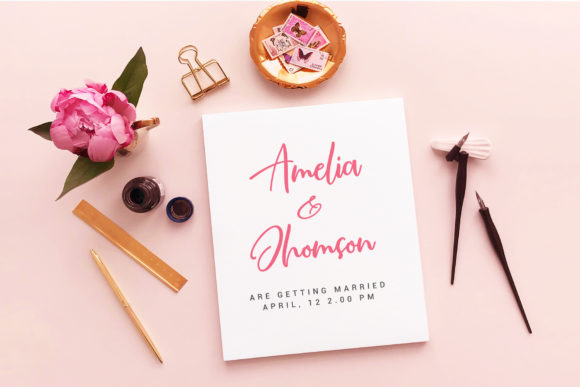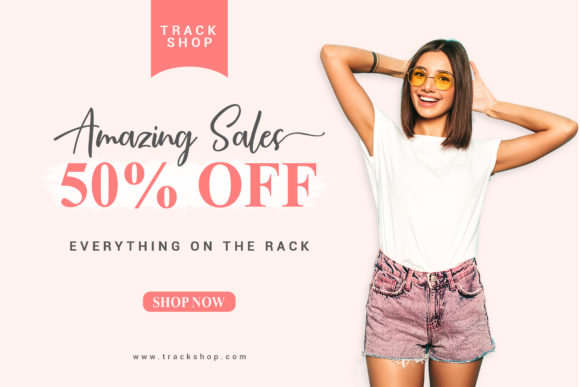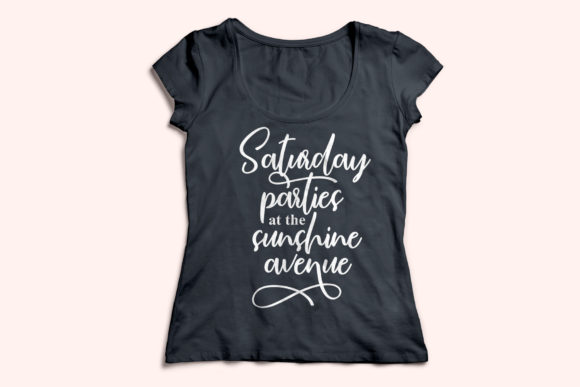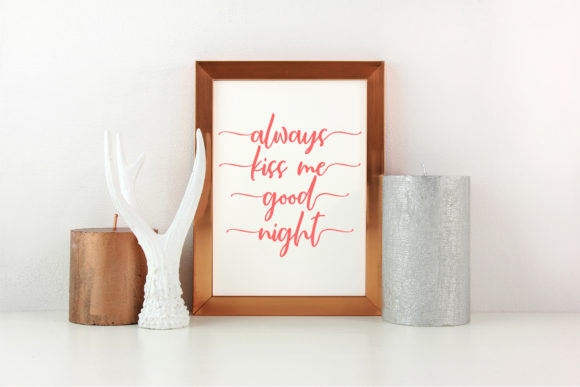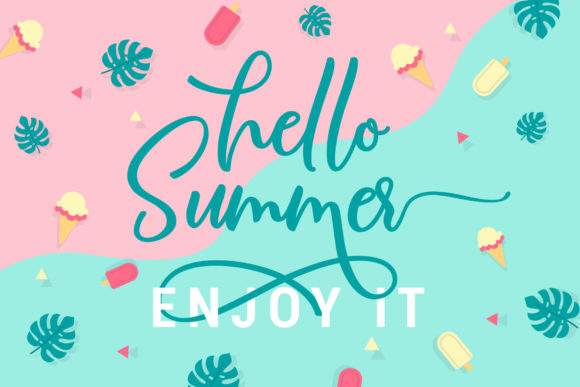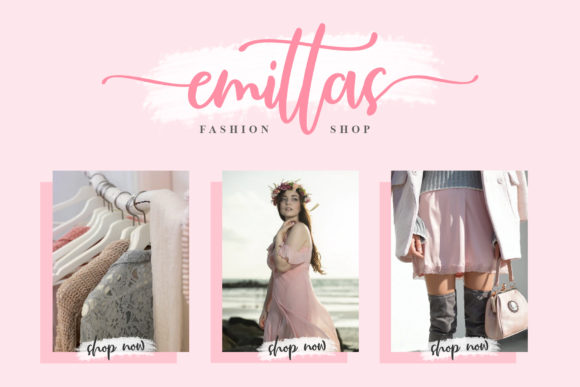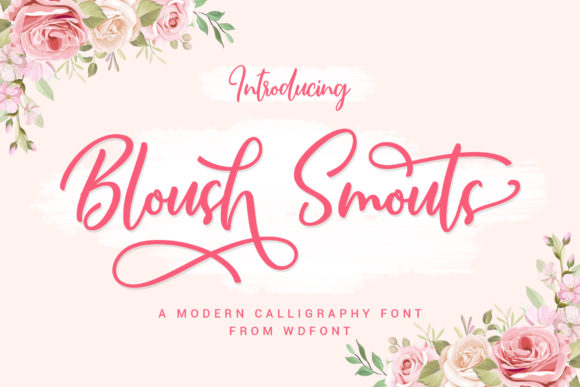
The Elusive Font: A Love Story with Bloush Smouts
I still remember the frustration of working on a project, hours spent searching for the perfect font, only to come up empty-handed. My client wanted something elegant, yet modern; a font that would make their brand stand out. And then, I stumbled upon Bloush Smouts. It was love at first sight! 💕 This beautiful, handwritten font has been a game-changer for my designs, and I’m excited to share its beauty with you.
The Good: Why I Adore Bloush Smouts
- ✨ Elegant and flowing script with a classy, calligraphic feel
- ✅ Varying baseline and smooth lines for a natural, handwritten look
- ✅ Stunning alternates and gorgeous glyphs to keep your designs fresh
The Not-So-Perfect: A Few Quirks
While Bloush Smouts is an amazing font, there are a few things to keep in mind:
- ⚠️ Some users might find the font’s script style a bit challenging to read in smaller sizes or for body text.
- 🤔 The font’s OpenType features might not work seamlessly in all design software or platforms.
The Story Behind Bloush Smouts: Designer Inspiration
While the true story behind Bloush Smouts remains a mystery, it’s easy to imagine that its designer was inspired by the flowing scripts of calligraphy and the elegance of handwritten letters. Perhaps they spent hours pouring over vintage lettering and typography books, searching for the perfect blend of classic and modern. Whatever the inspiration, Bloush Smouts is a true masterpiece.
Q: Is Bloush Smouts suitable for body text or reading-heavy content?
While Bloush Smouts is a beautiful font, its script style might not be the best choice for body text or reading-heavy content. It’s better suited for headings, titles, or short paragraphs.